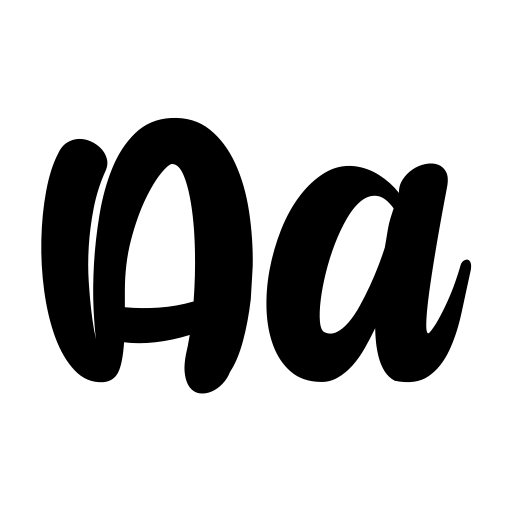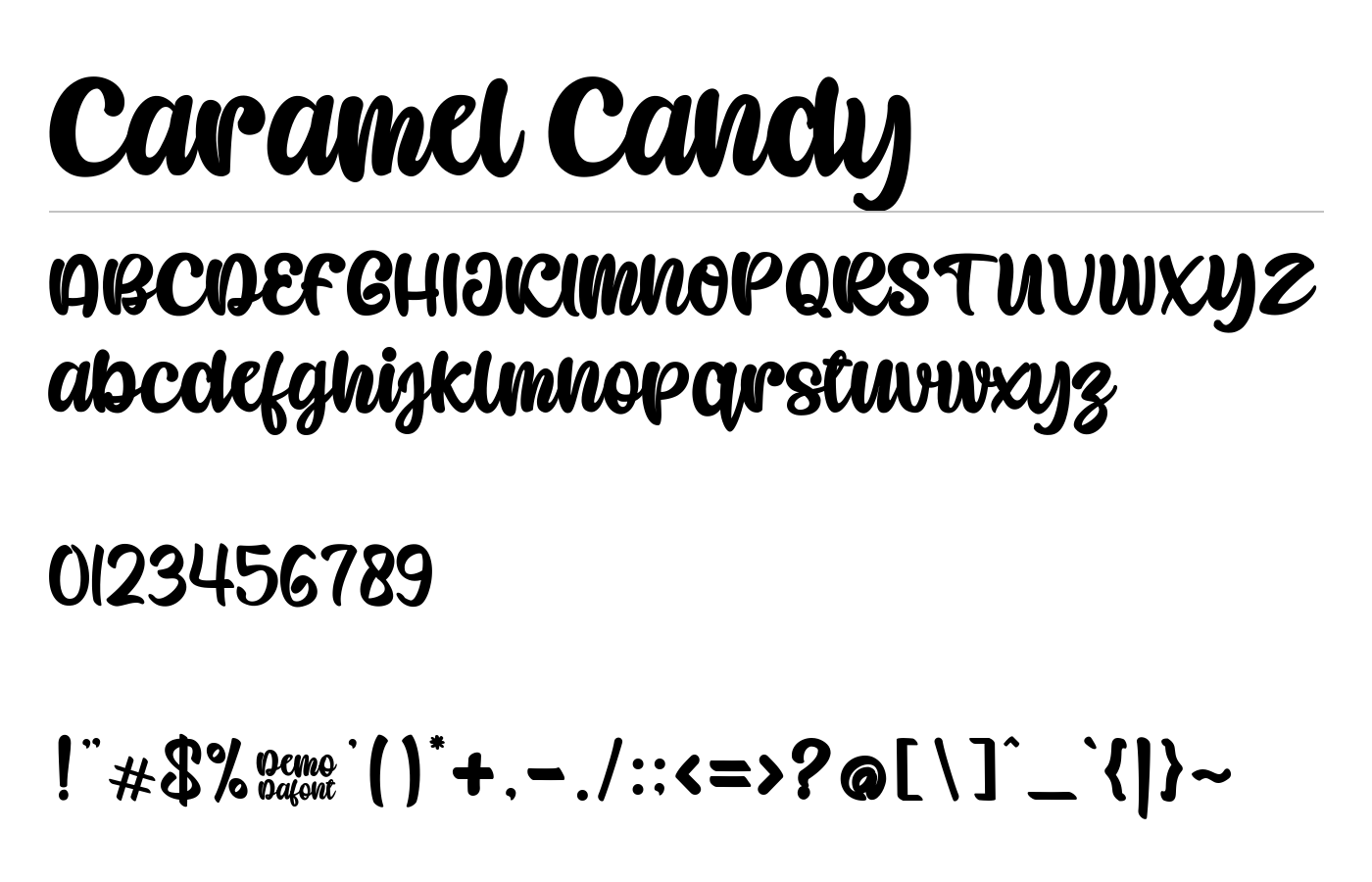
Caramel Candy is a bold, playful script font with a friendly, hand-lettered feel, featuring smooth, rounded strokes and consistent weight that create a warm and inviting appearance. Its lively, casual style makes it ideal for branding, packaging, and headlines where a fun and approachable mood is desired, especially in creative or youthful contexts. This font’s clear letterforms and energetic character bring charm and personality to any design requiring a personal touch.
Caramel Candy Font
About Caramel Candy Font